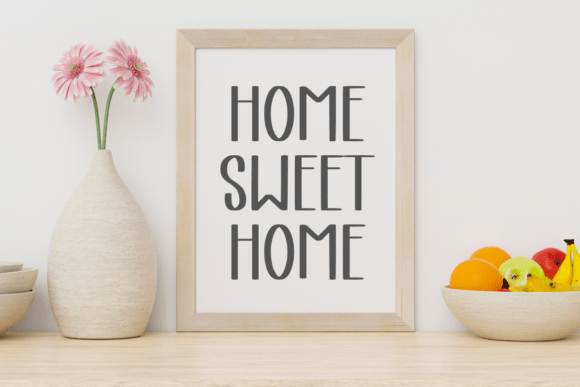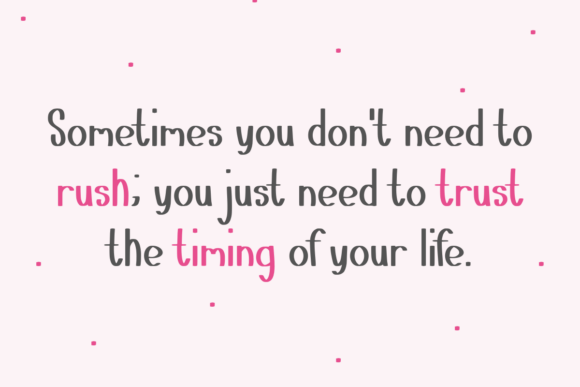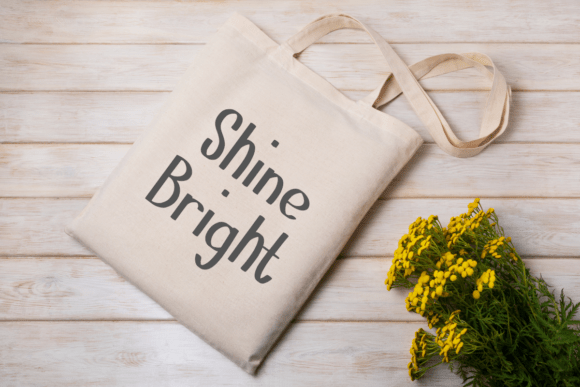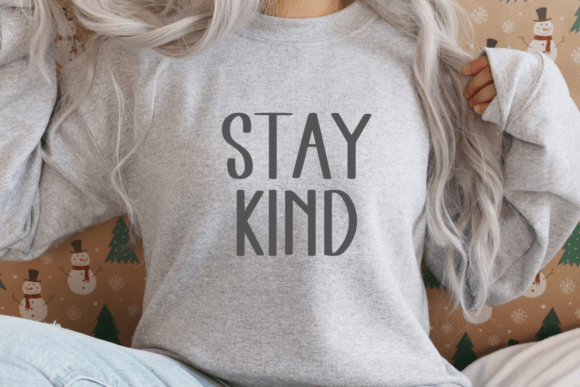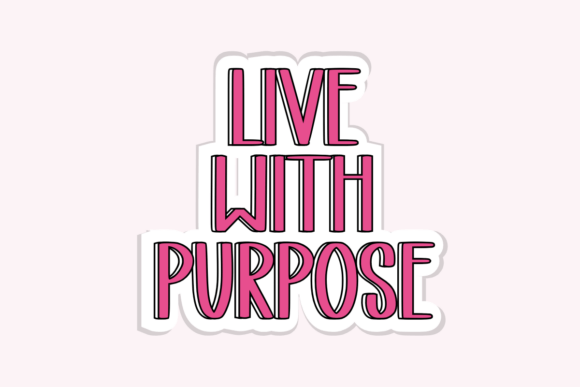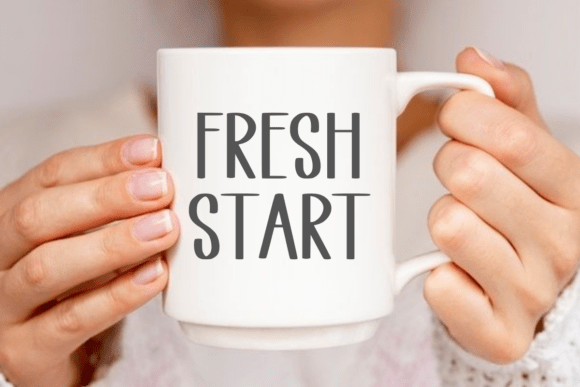
The Grand Notes Font: A Crafter’s Dream Come True
I’ll never forget the time I was working on a custom party invitation project for my niece’s birthday. I had the design concept all figured out, but I was stuck on finding the perfect font. I wanted something that was cute, playful, and had a personal touch. After hours of scouring through font libraries, I stumbled upon the Grand Notes font. It was love at first sight! 💕
Grand Notes is a sans serif handwriting font that exudes a soft, friendly, and natural look. Its warm, handcrafted feel makes it perfect for craft projects, planners, stickers, kids’ worksheets, classroom printables, and DIY designs. In this article, I’ll share my experience with Grand Notes, its features, and how to make the most of it in various design platforms.
An Honest Review of Grand Notes
What I Love About Grand Notes ✨
• ✅ The font’s simple strokes and smooth curves make it easy to cut using Cricut and Silhouette, perfect for crafting moms who love adorable handwritten styles.
• ✅ It’s highly versatile and works beautifully for quotes, greeting cards, kids’ labels, coloring pages, worksheets, bullet journals, scrapbooks, and playful graphic projects.
• ✅ The font’s friendly and approachable feel makes it perfect for designs that require a personal touch.
• ⚠️ Some users might find the font a bit too casual for formal designs. However, this also makes it perfect for creative and playful projects.
• ⚠️ The font’s legibility might be affected if it’s used at very small sizes or in designs with a lot of background noise.
3. Experiment with the font’s OpenType features, such as ligatures and stylistic alternates, to add a personal touch to your design.
The Story Behind Grand Notes
Grand Notes was designed with the intention of creating a font that’s both cute and functional. The designer aimed to create a font that would bring a warm, handcrafted feel to various design projects. The result is a font that’s perfect for crafty designs, DIY projects, and creative endeavors that require a personal touch.
Font Name Grand Notes Font
Author Nuhatype
Q: What type of designs is Grand Notes best suited for?
A: Grand Notes is perfect for craft projects, planners, stickers, kids’ worksheets, classroom printables, and DIY designs that require a personal touch.
Q: Is Grand Notes easy to read?
A: Yes, Grand Notes is designed to be easy to read, even at small sizes. However, its legibility might be affected if it’s used in designs with a lot of background noise or at very small sizes.